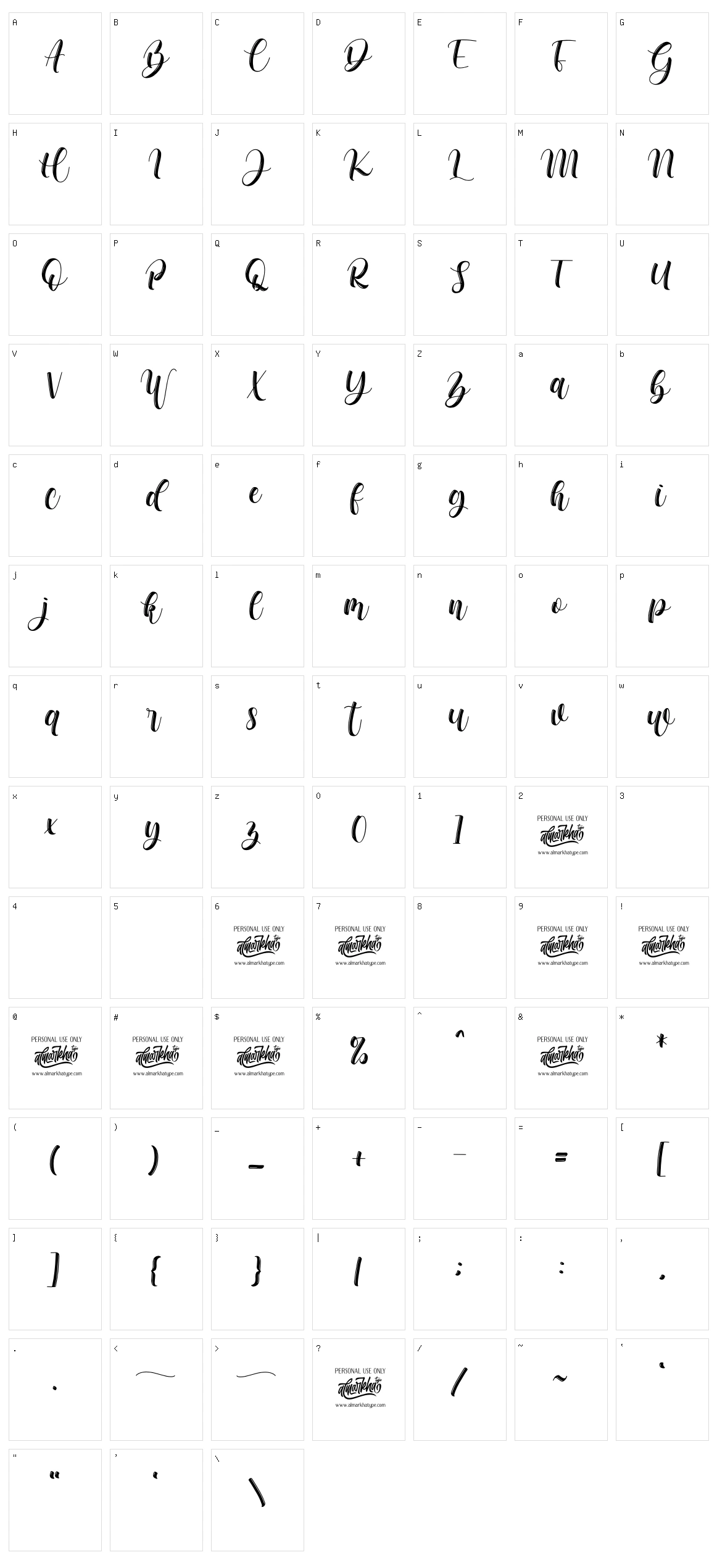
The free font Chadelova is carefully designed by Almarkhatype, showcasing a thoughtful balance of creativity and usability and falls under the Script font style. When you download the ZIP file, it contains only 739.21 KB of font files, making it lightweight and quick to download. Please review the license details below to understand permitted usage and distribution rights. If license information is not available, we recommend using this font for personal projects only or contacting the author directly for commercial usage permissions.